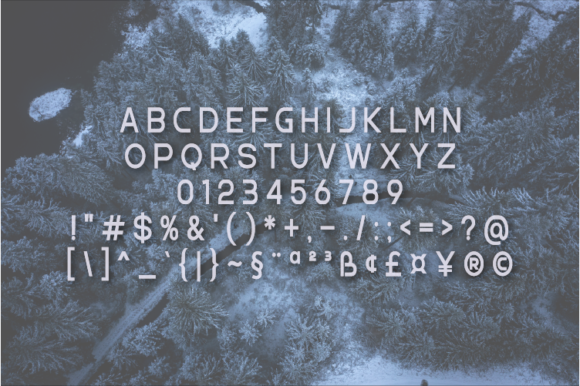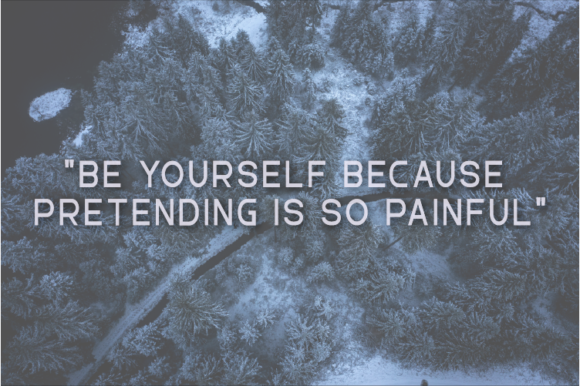
Unlock the Power of Simple Elegance: Cleoverda Font
You know that feeling when a single element brings your entire creative project together? Maybe it’s a perfectly placed image, a clever color scheme, or a font that speaks to the very soul of your message. For me, it’s often the latter. The right font can be the missing piece that elevates your design from good to great.
Enter Cleoverda Font, a neat and simple lettered sans serif font that’s about to become your new go-to. Whether you’re working on a branding project, a blog post, or a marketing campaign, Cleoverda Font has the potential to take your creations to the next level. Its clean lines and effortless style make it an incredibly versatile asset to any designer’s library.
With Cleoverda Font, you’ll be able to craft designs that are both visually appealing and easy to read. Its value lies in its ability to adapt to any topic or style, making it a must-have for designers of all levels.
Cleoverda Font Key Features
- Font Family: Cleoverda Font is a sans-serif font family with a modern and clean design.
- Character Set: Supports a wide range of languages, including Latin, Cyrillic, Greek, and more.
- Unique Characteristics: Features a distinctive x-height and a unique letterform design that sets it apart from other sans-serif fonts.
Cleoverda Font Review
I recently had the chance to work with the Cleoverda font, and I have to say, it’s a mixed bag. Let’s start with what works well: ✨ The font is super versatile and can be used for a wide range of projects, from body text to display headings. It’s also surprisingly legible at various font sizes, which is always a plus. Additionally, the font’s modern design makes it a great fit for contemporary designs.
Here are some of the things I like about Cleoverda:
- ✨ Wide range of applications: Cleoverda can be used for body text, display headings, and even logos.
- ✨ Legibility: The font is easy to read, even at small font sizes.
- ✨ Modern design: Cleoverda’s design makes it a great fit for contemporary designs.
However, there are some limitations to consider: ⚠️ The font is not as bold as I’d like, and the italics can be a bit hard to read at times. Additionally, the font’s unicode support is not as comprehensive as I’d like.
- ⚠️ Limited boldness: Cleoverda’s bold weight is not as strong as I’d like.
- ⚠️ Italic readability: The font’s italics can be a bit hard to read at times.
- ⚠️ Unicode support: Cleoverda’s unicode support is not as comprehensive as I’d like.
Overall, I think Cleoverda is a solid font that’s worth considering for your next project. While it has some limitations, its versatility and legibility make it a great choice for a wide range of applications.
Tips for Getting the Most Out of Cleoverda Font
For optimal results, use Cleoverda Font in conjunction with high-quality images and a well-designed layout. Experiment with font sizes, colors, and styles to achieve the desired visual effect.
Cleoverda Font is ideal for use in creative projects, such as:
- Branding and marketing materials
- Graphic design and visual identity
- Print and digital publications